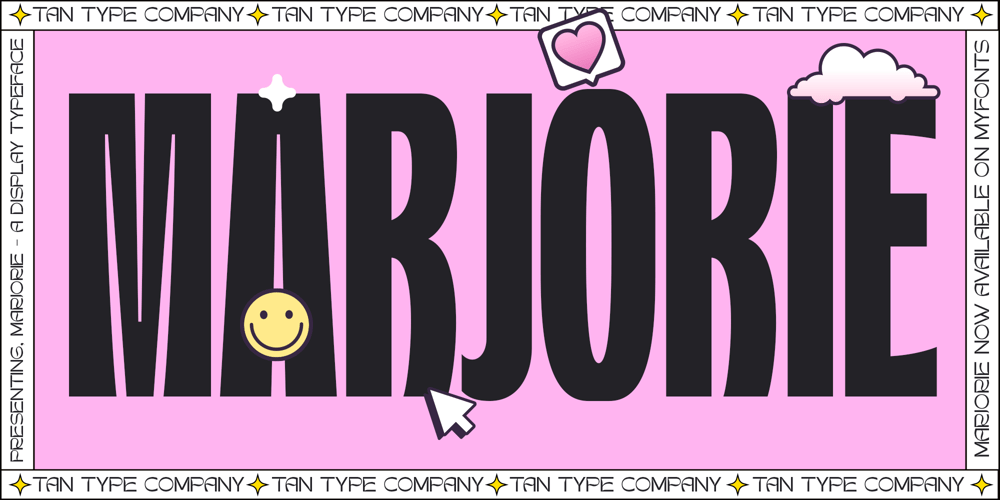
TAN Marjorie Font Family was designed by Novia Jonatan and published by TANTypeCo.. TAN Marjorie contains 1 styles and family package options. TAN – MARJORIE is a display sans serif. Bold and groovy. Inspired by fonts you can find in 80s book covers, it gives a modern yet retro vibes.